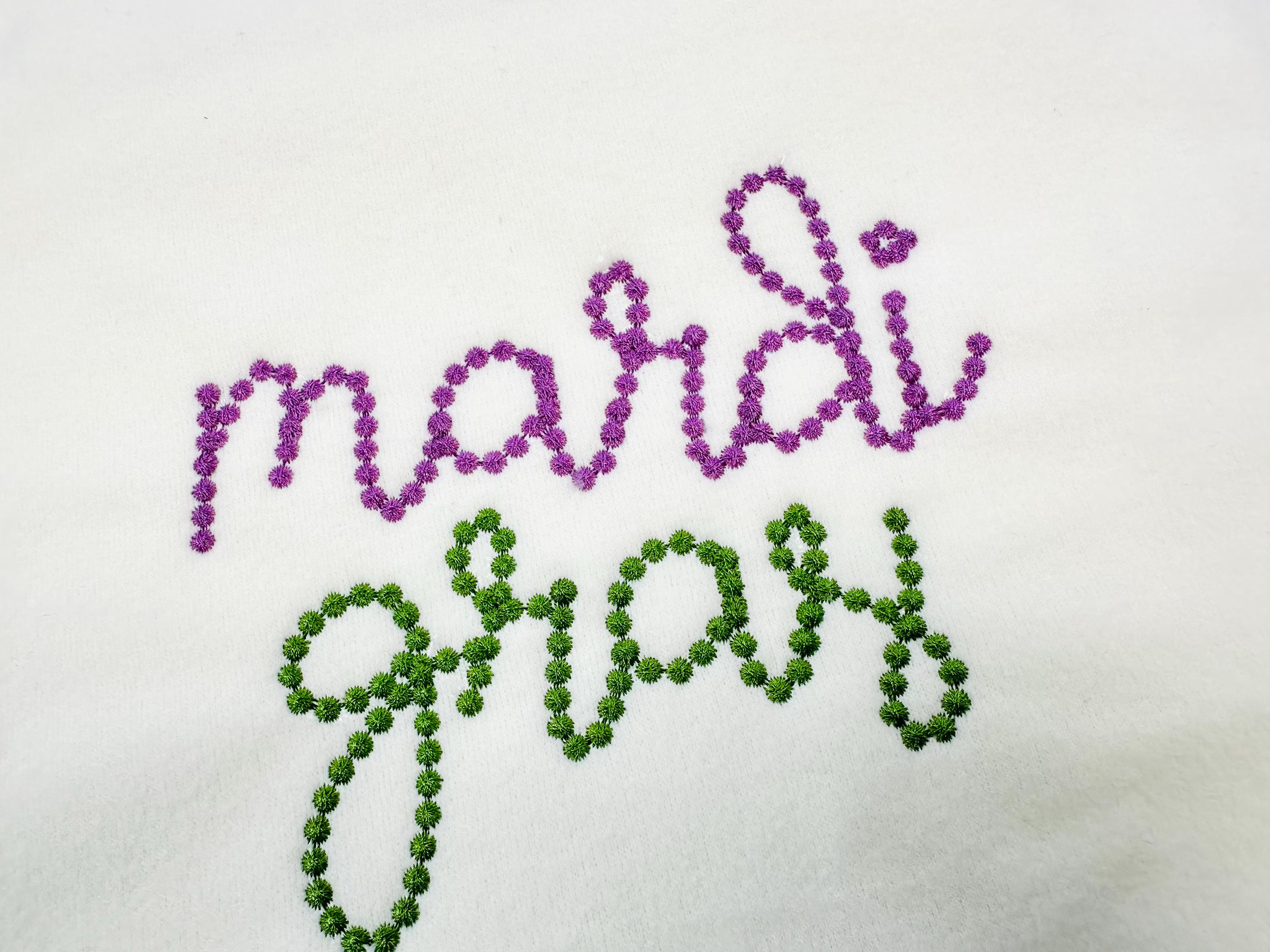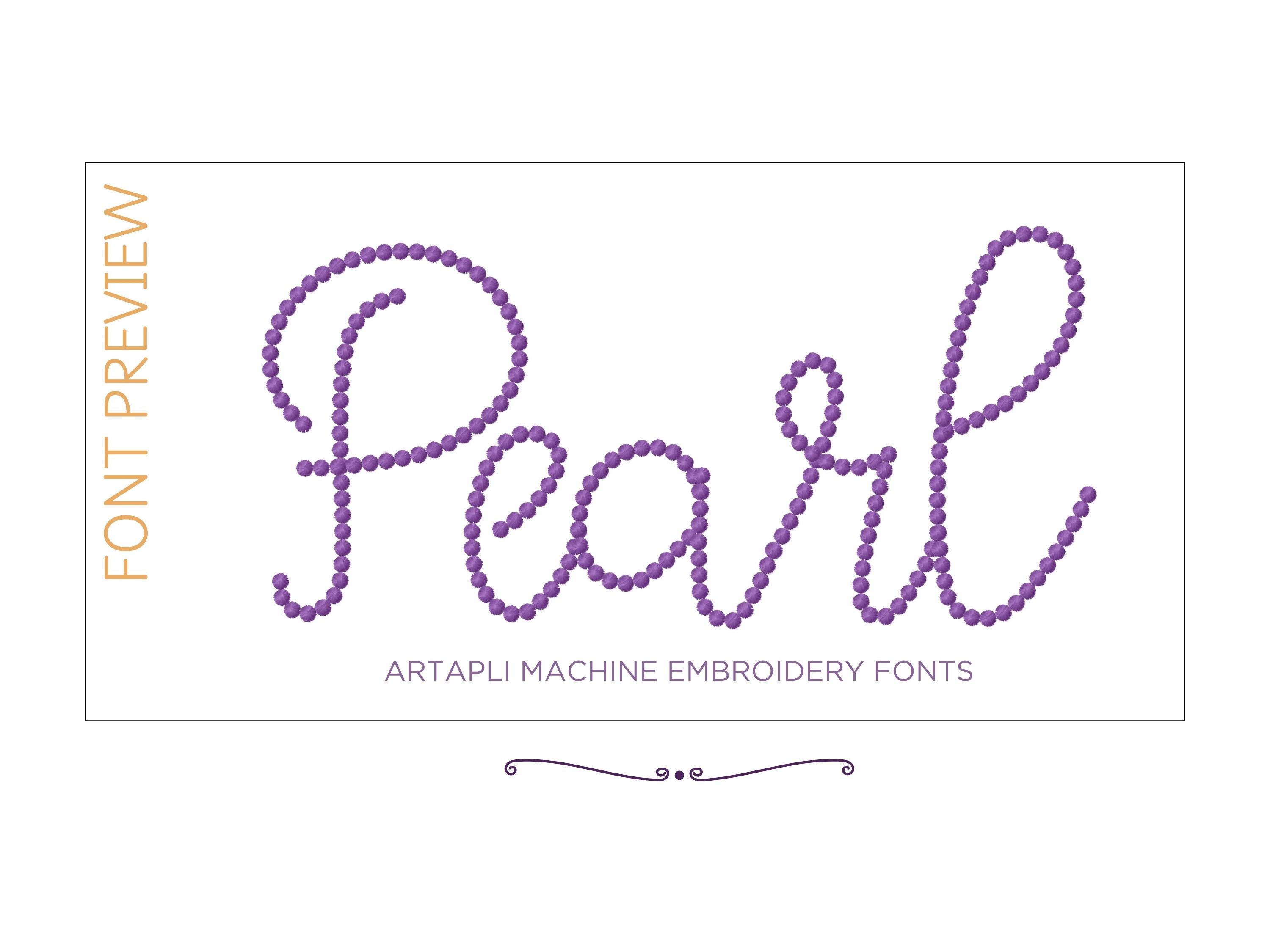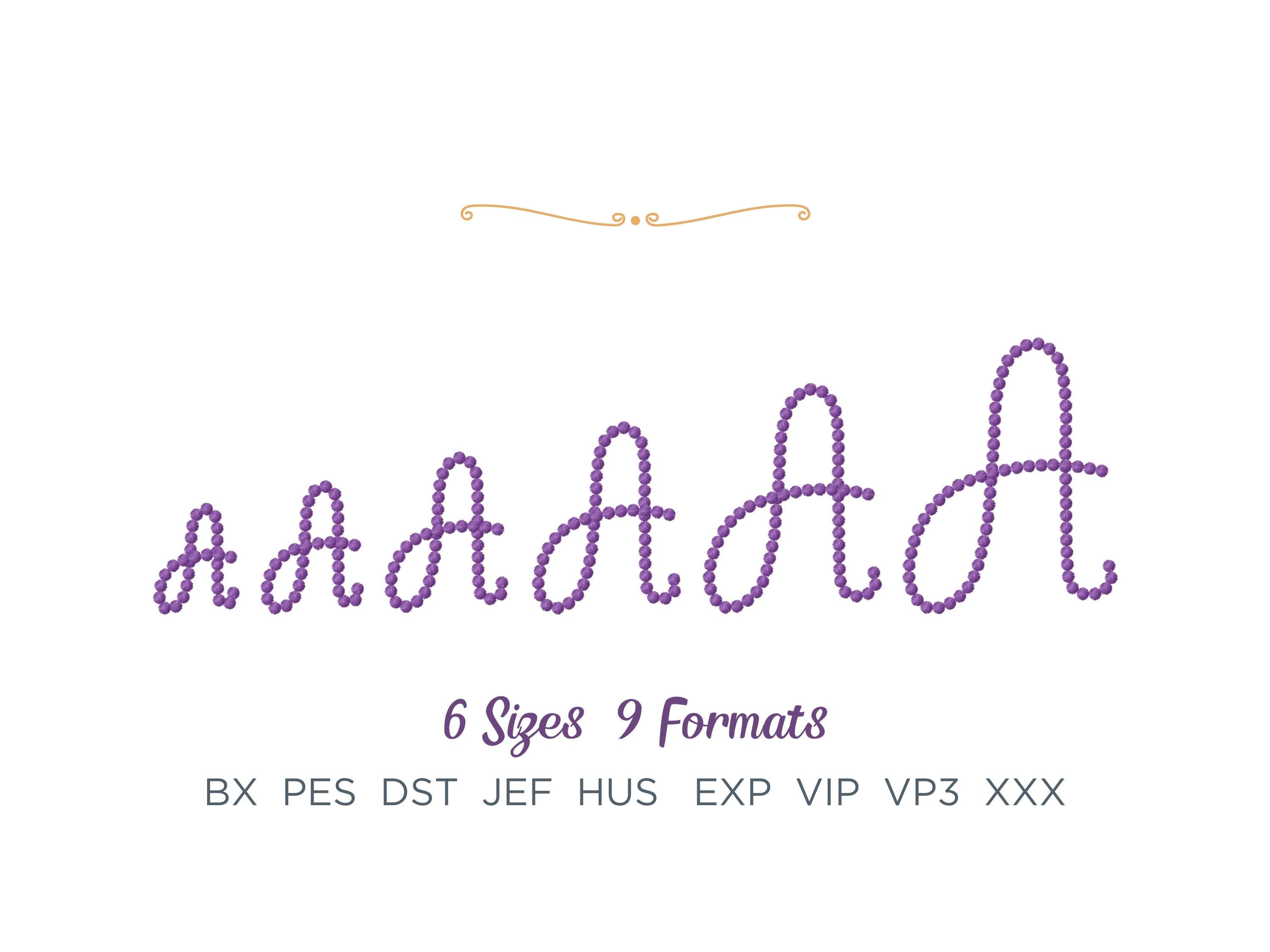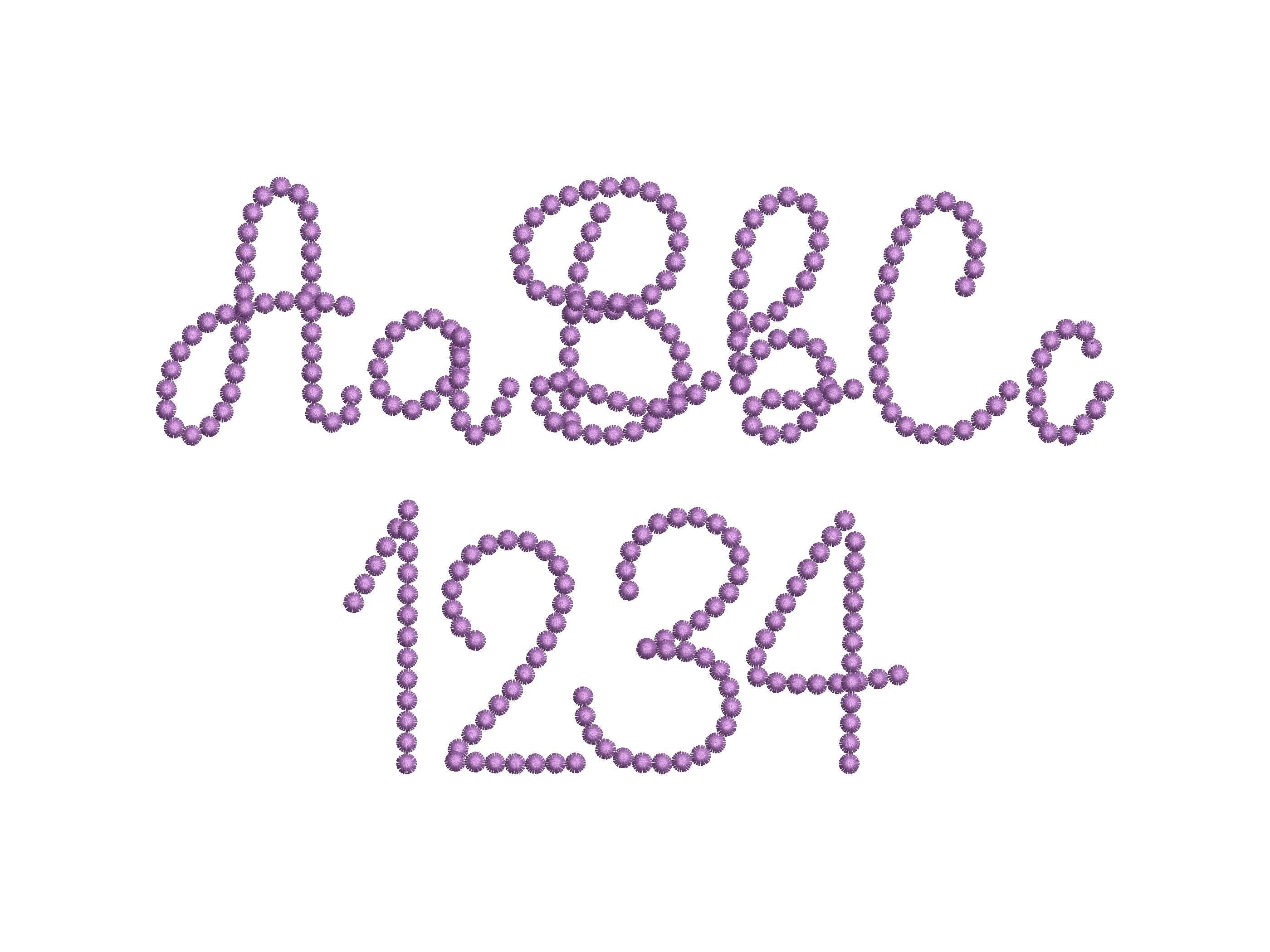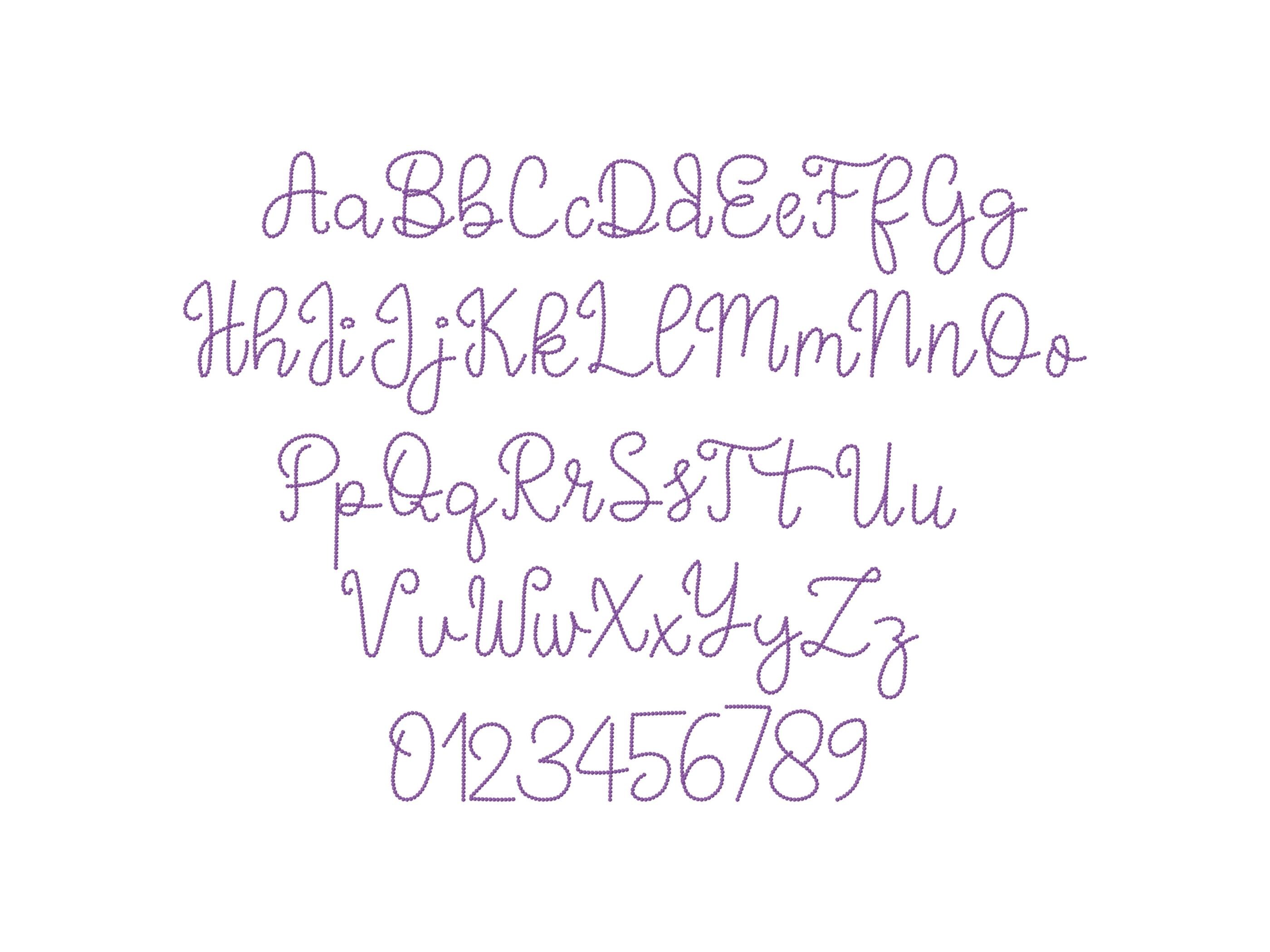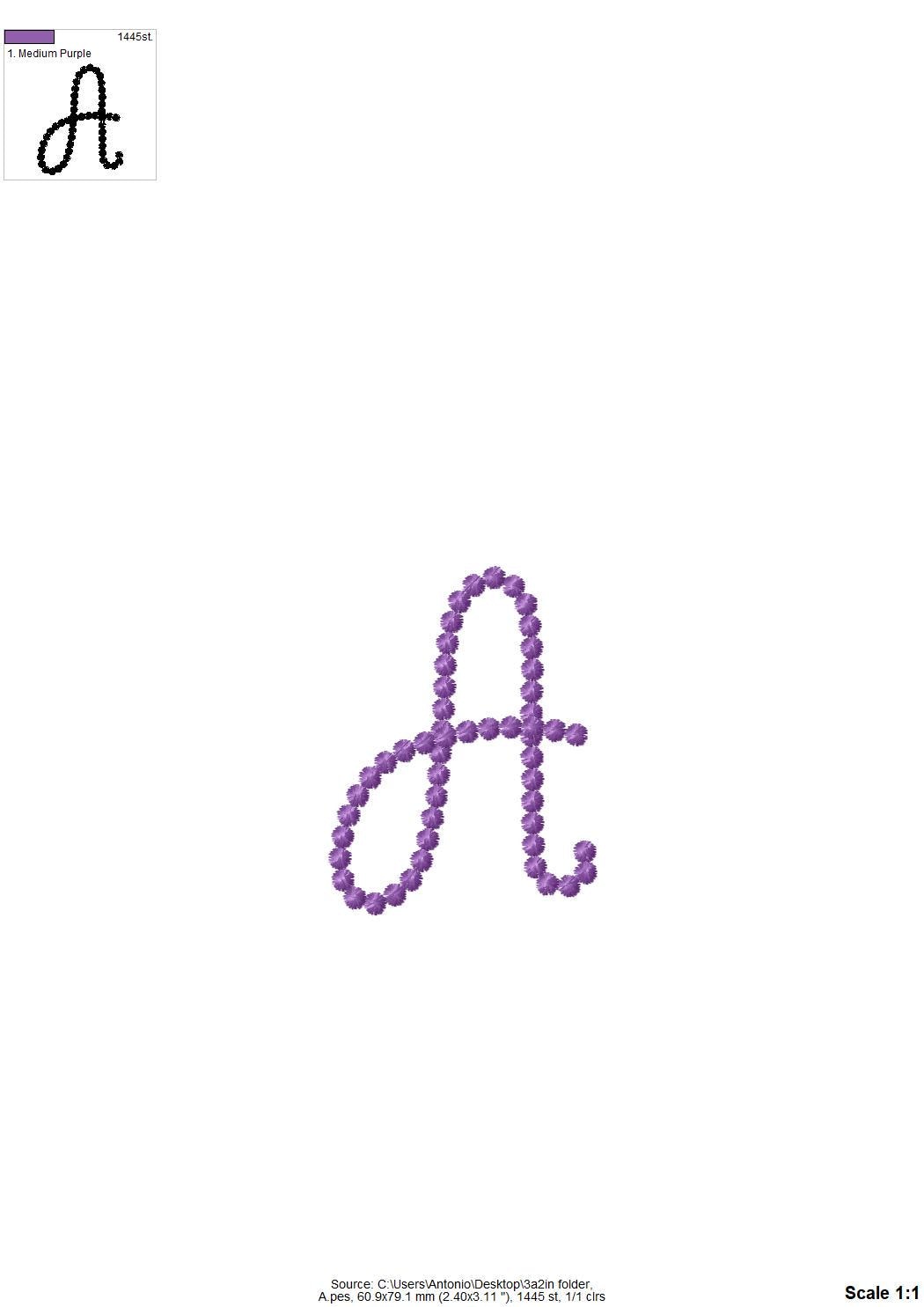
Pearl stitch Font machine embroidery designs awesome Pearl line monogram handwritten script alphabet letters numbers sizes 1.8 up to 4.5in
Entire alphabet uppercase and lowercase letters, and numbers.